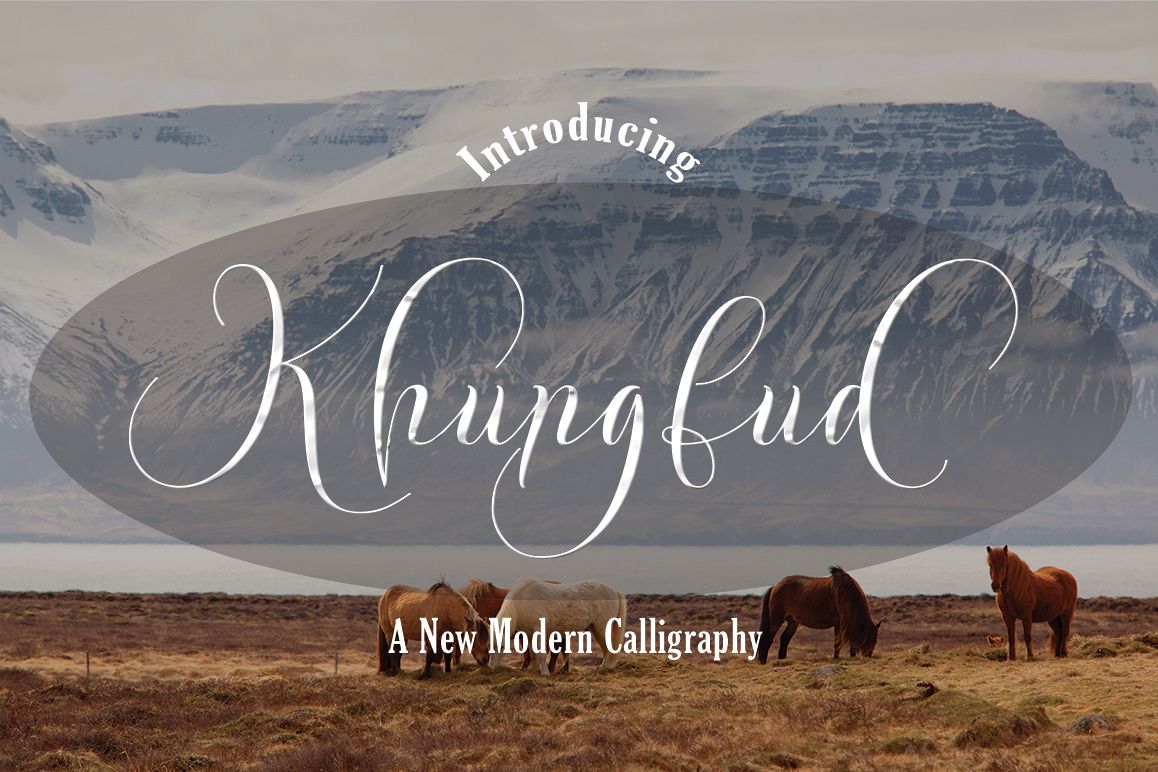
Khungfud
Khungfud Script.
Khungfud Script is a stylish calligraphy font that features a varying baseline, smooth line, classic and elegant touch. Can be used for various purposes.such as headings, signature, logos, wedding invitation, t-shirt, letterhead, signage, lable, news, posters, badges etc.The Features of this fonts is:
• Standart ligatures
• PUA Unicode (Private Use Areas)